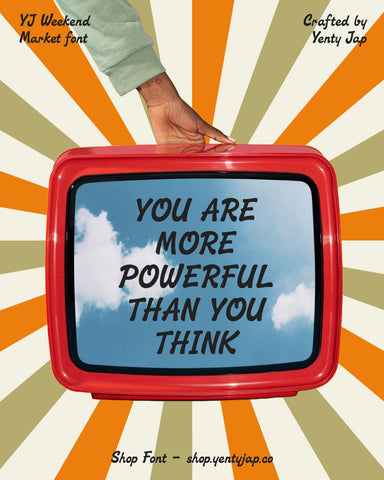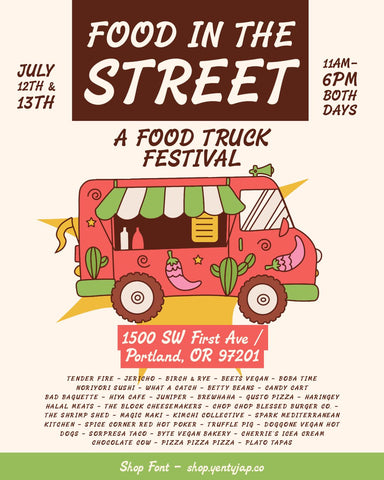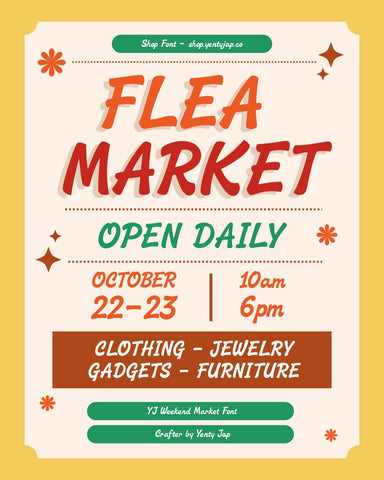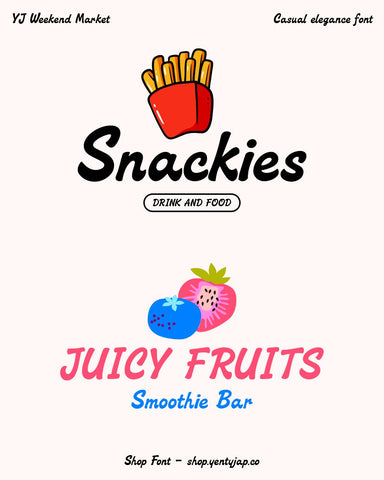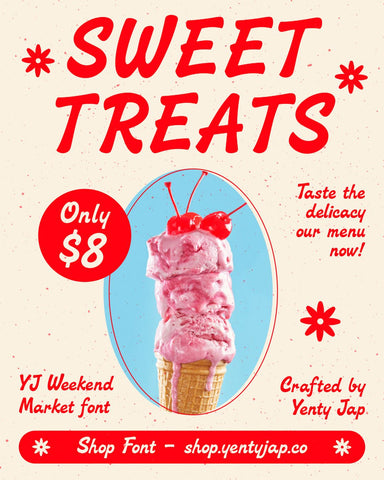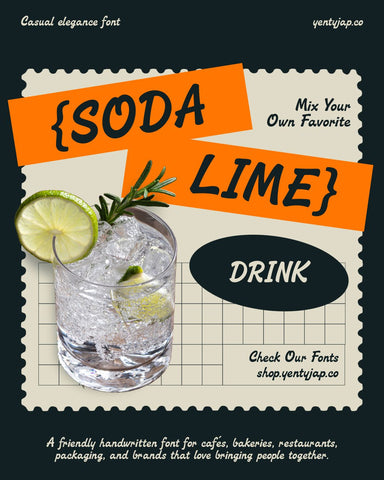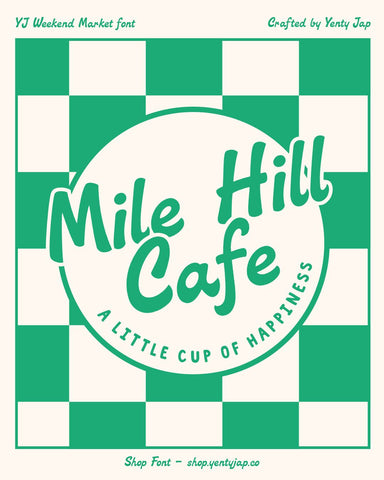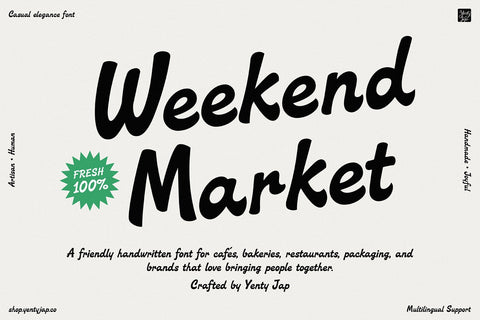
YJ Weekend Market font
There's something special about wandering through a weekend market.
Fresh bread tucked under one arm. A bunch of flowers you didn't plan to buy. The friendly stall owner who remembers your name. Conversations that start over samples of cheese and somehow end an hour later.
YJ Weekend Market was inspired by those simple moments—the ones that remind us that good design, like good food, brings people together.
This is a warm, handwritten display typeface with an approachable personality and just the right amount of charm. Its playful brush strokes and handmade character feel welcoming rather than polished, making it perfect for brands that value authenticity over perfection.
Whether you're creating a neighbourhood café, an artisan bakery, a farmers market identity, or thoughtfully designed packaging, YJ Weekend Market helps your words feel like an invitation.
Because sometimes a font doesn't just communicate. It says, "Come in. Stay awhile."
Perfect for:
- Café & coffee shop branding
- Restaurants & wine bars
- Artisan bakeries & patisseries
- Food packaging
- Farmers markets
- Grocery & organic brands
- Menu design
- Product labels
- Logo design
- Hospitality branding
- Social media graphics
- Event posters
- Lifestyle brands
- Greeting cards
- Merchandise
- Editorial headlines
Designed for brands where welcome is everything, and for designers who believe good typography should feel as warm as the spaces it lives in.
1. A full set of uppercase and lowercase letters with multilingual support
2. Numbers, punctuation, and symbols
Whether you're building a cosy café brand, designing packaging for a small-batch food maker, or creating social content that feels genuinely human, YJ Weekend Market is ready to help your message feel a little warmer.
After all, the best conversations usually begin with an invitation.